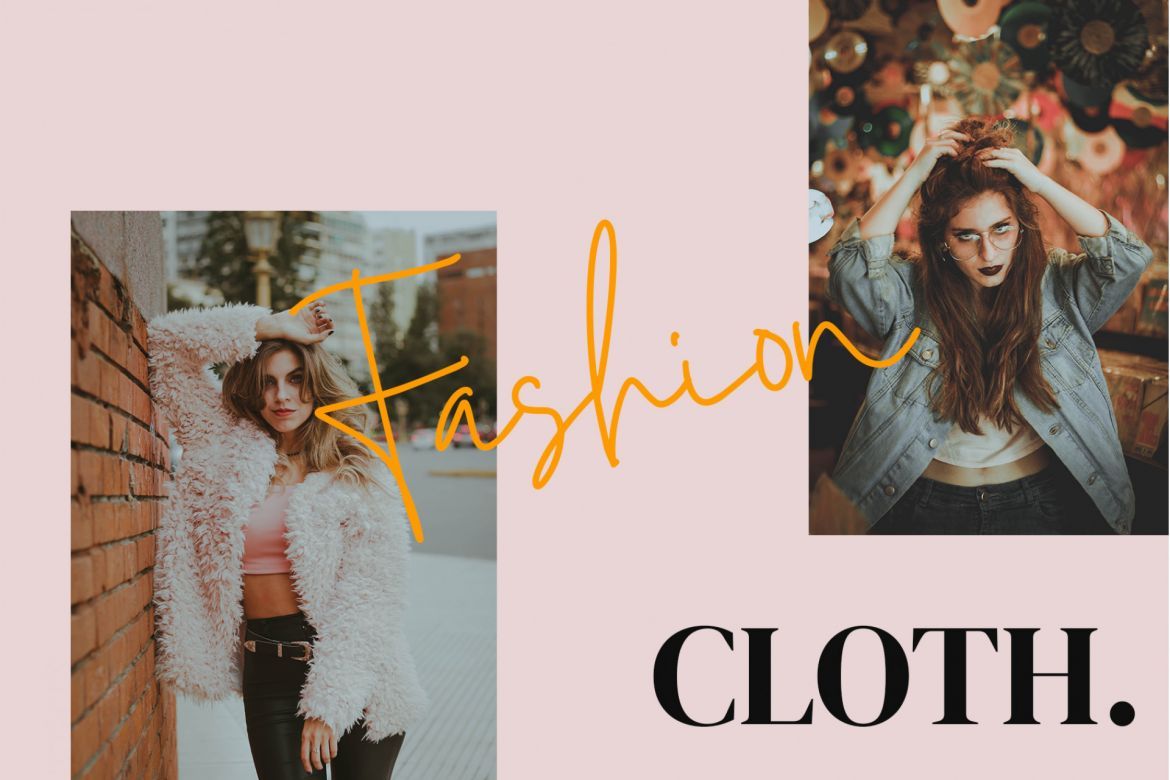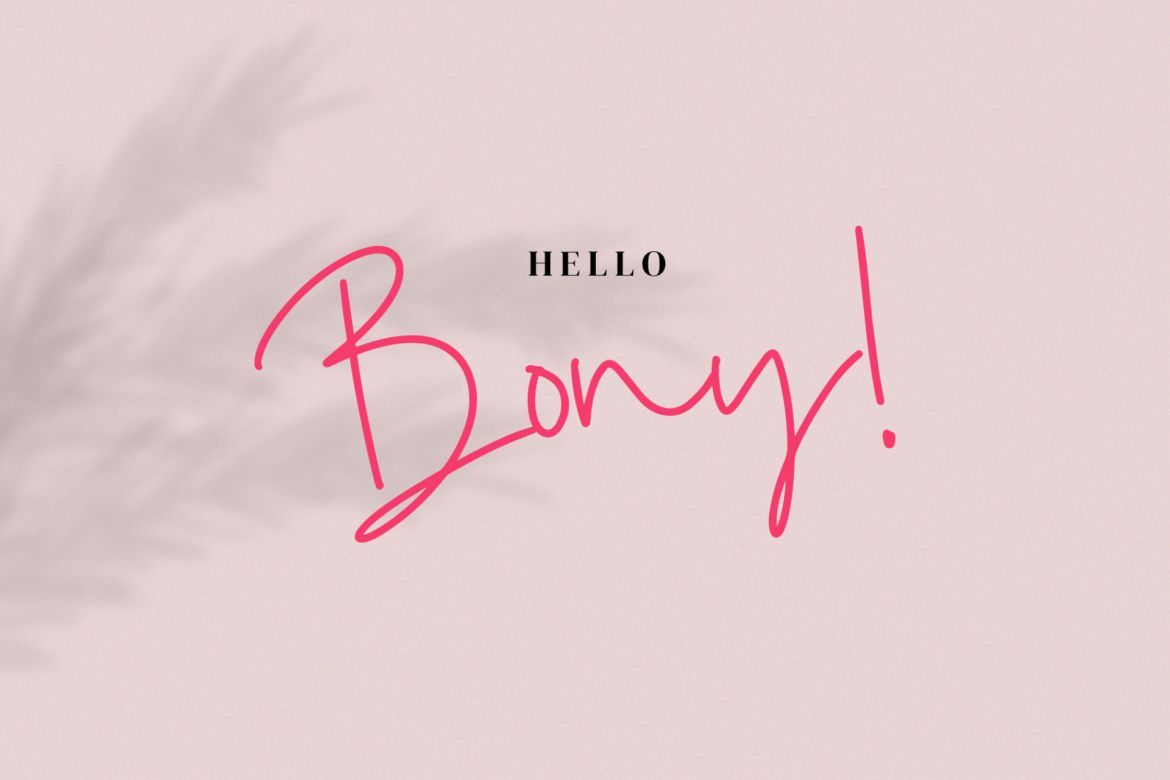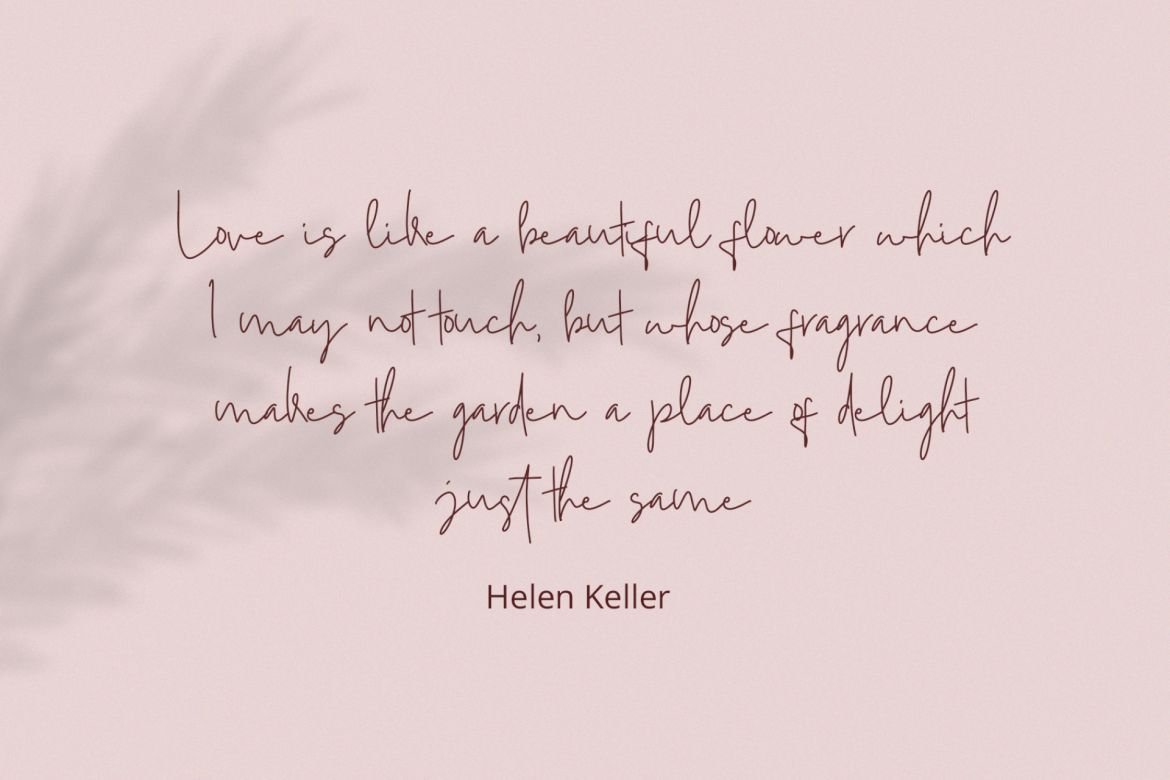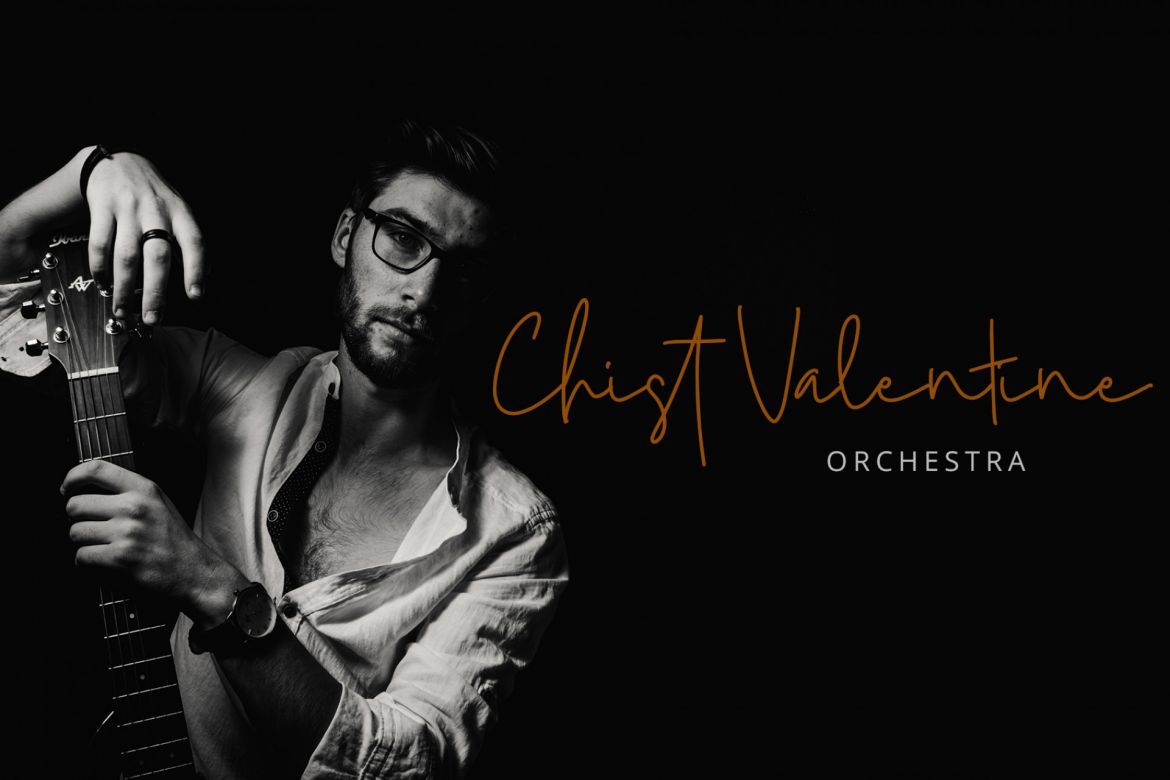
Mistice Signature Font
Mistice Signature Font is an exciting handwritten font with signature style. This beautiful script can make your design project look elegant, classy, and modern.
Mistice is perfect for branding projects, logo, wedding designs, social media posts, advertisements, product packaging, product designs, label, photography, watermark, invitation, stationery and any projects that need handwriting taste
• ligature
• tons of glyphs